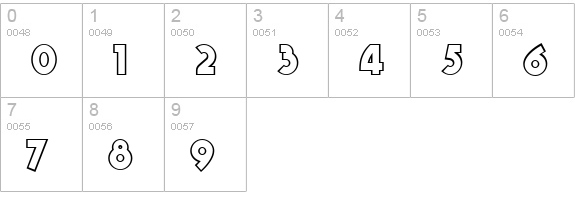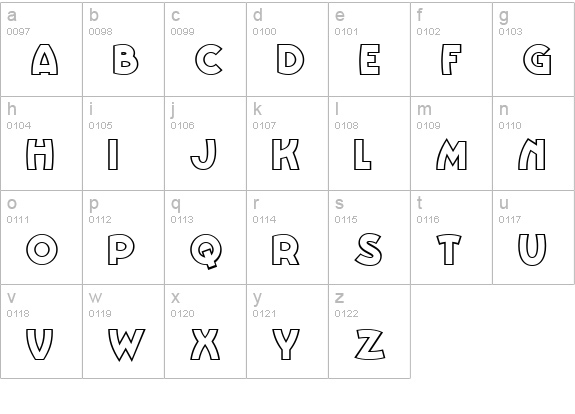
Vinnie BoomBah NF Font Details
Vinnie BoomBah NF font is a quirky and playful typeface that is sure to catch the eye of any viewer. With its bold and rounded letterforms, this font exudes a sense of fun and energy that makes it perfect for a variety of design projects. Whether you're creating a poster, logo, or website, Vinnie BoomBah NF font will add a touch of whimsy and charm to your work. What's even better is that Vinnie BoomBah NF font is completely free to download at FontsMarket.com. That's right, you can get your hands on this delightful font without spending a dime. So why wait? Add Vinnie BoomBah NF font to your collection today and let your creativity soar with its unique and cheerful style.